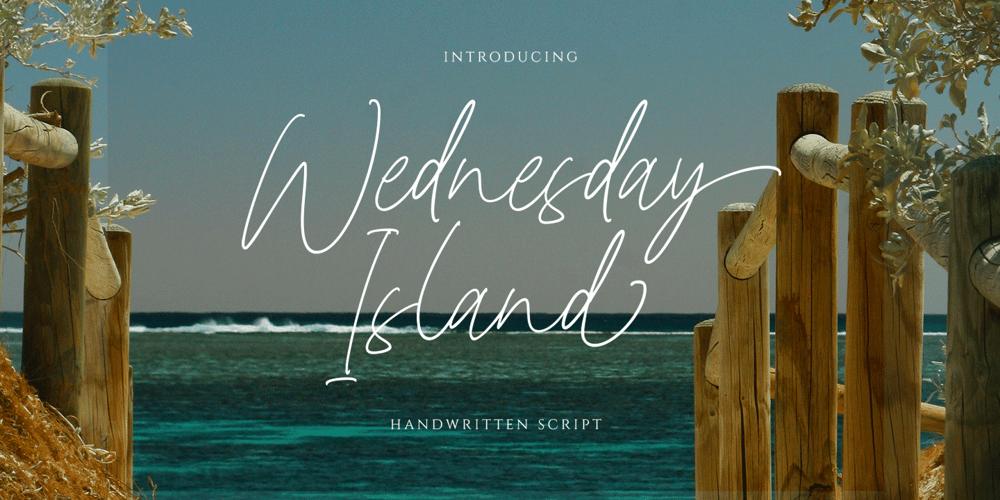
Wednesday Island Font Family was designed by Hendry Juanda and published by Letterhend. Wednesday Island contains 1 styles and family package options. Looking fresh and chic font?Introducing, Wednesday Island – an authentic handwritten script. This font is made for perfect handwriting. This type of font perfectly made to be applied especially in logo, and the other various formal forms such as invitations, labels, logos, magazines, books, greeting / wedding cards, packaging, fashion, make up, stationery, novels, labels or any type of advertising purpose.Features : uppercase & lowercase numbers and punctuation multilingual alternates and ligatures PUA encoded We highly recommend using a program that supports OpenType features and Glyphs panels like many of Adobe apps and Corel Draw, so you can see and access all Glyph variations. How to access opentype feature : letterhend.com/tutorials/using-opentype-feature-in-any-software/